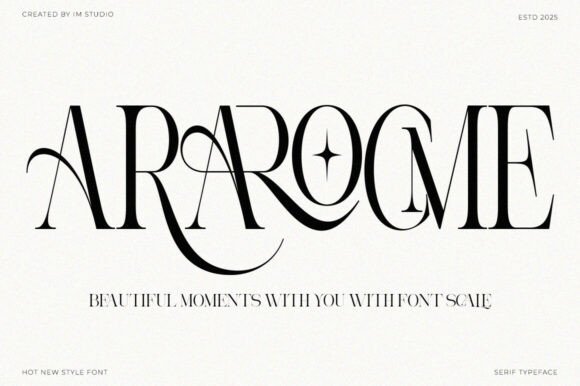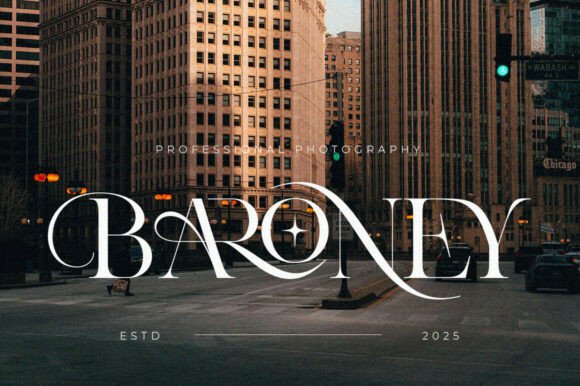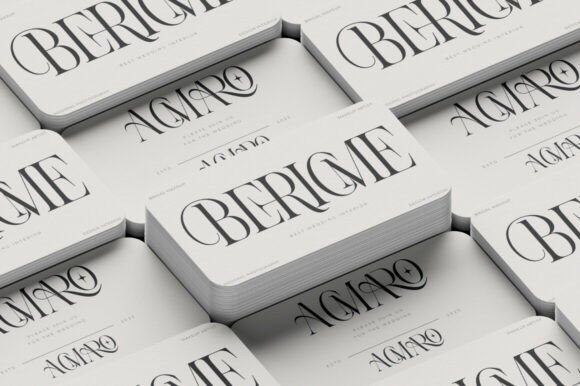
Discover the Elegance of Aroney Font: Elevate Your Brand’s Visual Identity
The Birth of Aroney Font
The Aroney Family Typeface is a unique amalgamation of elegance and creativity, specially crafted with the essence of rich experience in forming visual identities for diverse businesses. This serif font meets the ever-growing demand for an exclusive typographic style that boasts classiness while maintaining uniqueness. The team behind Aroney Font aimed to create a typeface that would allow businesses to convey a professional and sophisticated image, leaving an unforgettable impression.
What I Love About Aroney Font
• ✨ Elegant serif design that adds a touch of sophistication to any project
• ✅ Versatile font family with multiple variations, including Aroney Regular, Aroney Expanded, Aroney Condensed, Aroney Scale, and Aroney Slant
• 🌎 Multilingual support with a wide range of characters and symbols
• 💻 PUA-encoded for effortless access to glyphs, swashes, and alternate characters
While Aroney Font is an exceptional typeface, there are a few quirks to be aware of:
• 🤔 Some users may find the font’s elegance and sophistication limiting for certain design projects that require a more playful or casual tone.
• ⚠️ The font’s complexity may require a learning curve, especially for those new to using OpenType features and glyphs.
The Aroney Family Typeface was inspired by the designer’s passion for creating unique and elegant typographic styles. With a background in visual identity design, the team aimed to craft a font that would meet the growing demand for exclusive and sophisticated typefaces. Through a combination of traditional techniques and modern technology, the Aroney Font was born.
Is Aroney Font suitable for digital and print designs? Yes, the Aroney Font is designed to be versatile and can be used for both digital and print designs.
Can I modify the Aroney Font to suit my design needs? While it’s not recommended to modify the font itself, the PUA-encoding allows for effortless access to glyphs, swashes, and alternate characters to help you customize your design.